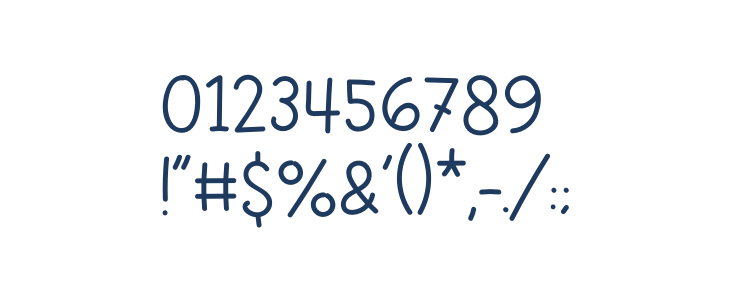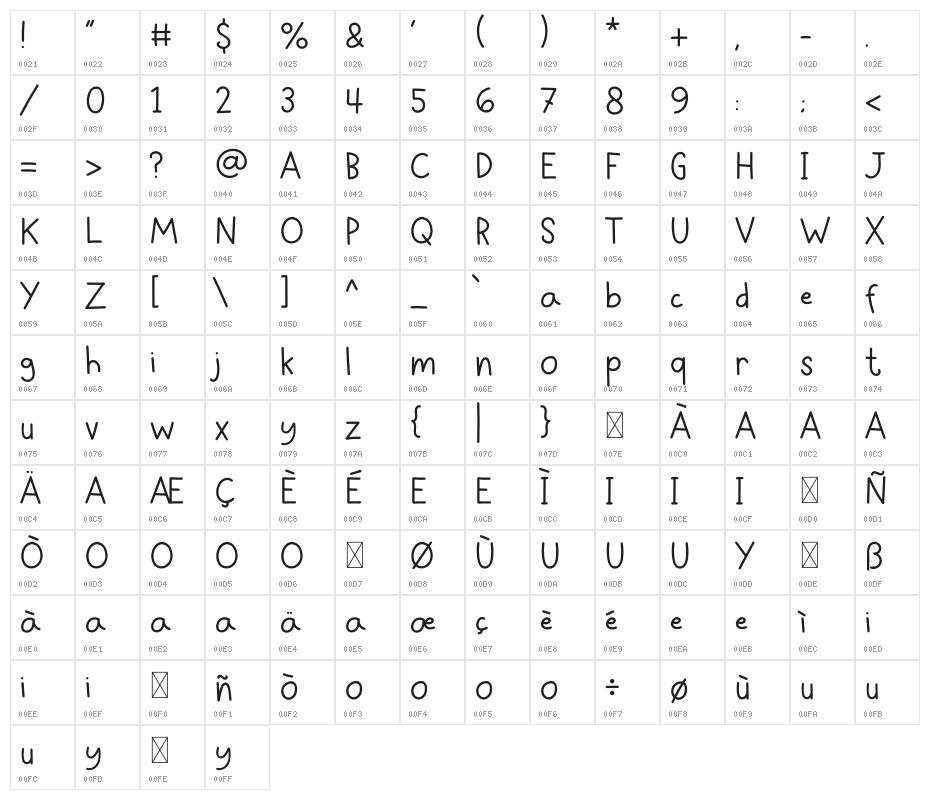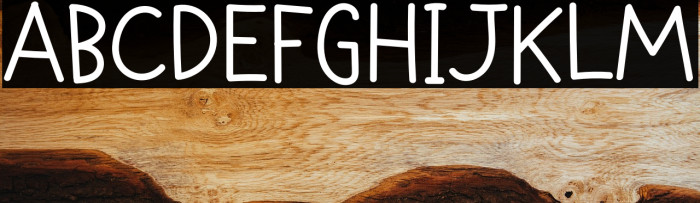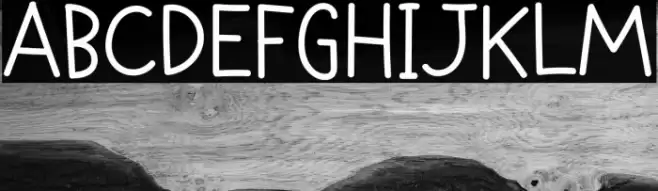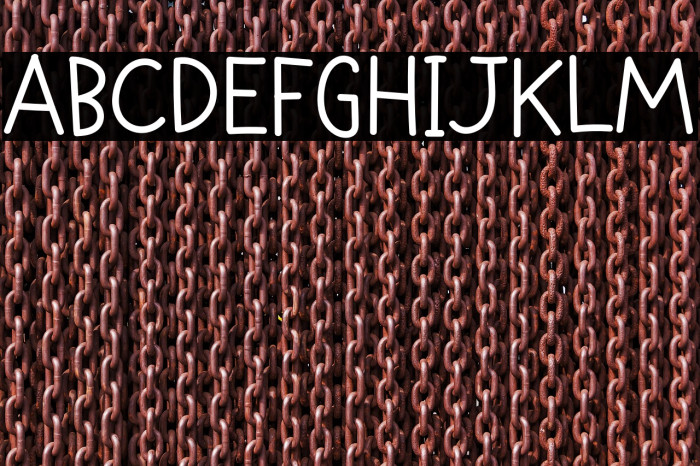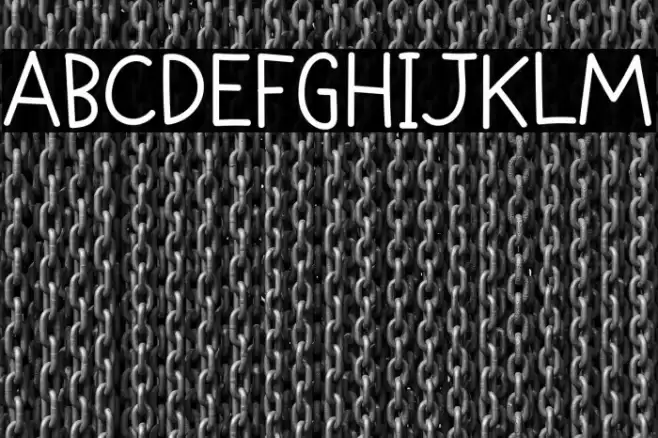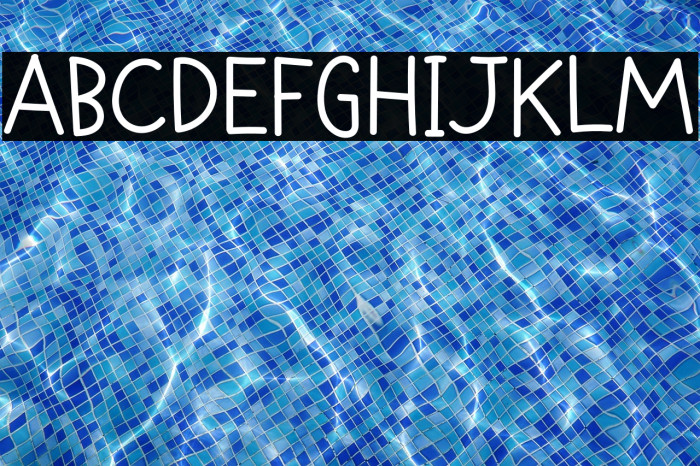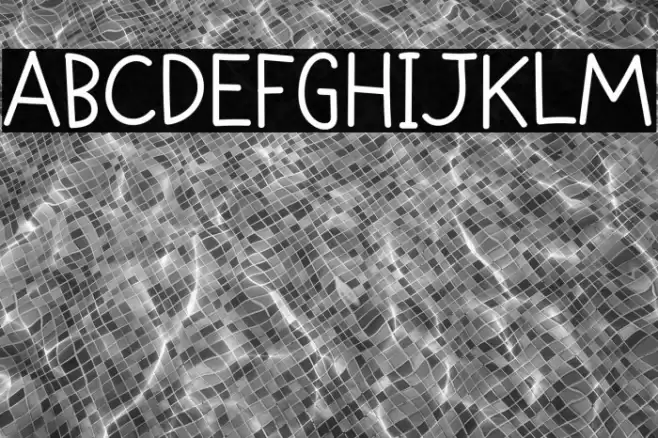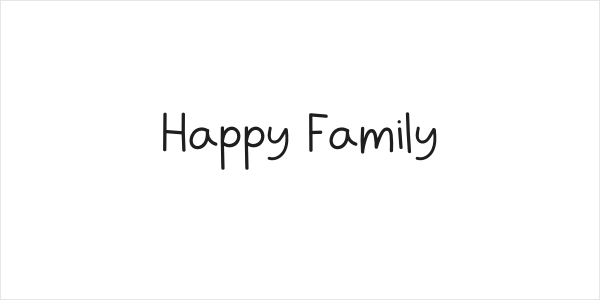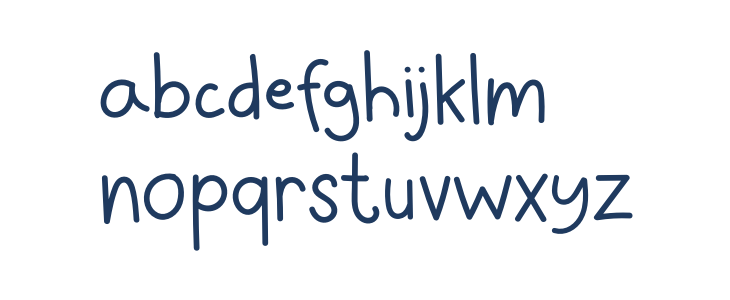
Happy Family Font
Happy Family Description
This font features a playful and casual handwritten style that exudes warmth and friendliness. The letters are slightly rounded with a consistent stroke width, giving it a uniform appearance. The uppercase characters are tall and slightly narrow, while the lowercase letters maintain a consistent height, contributing to a cohesive look. The numbers are clear and legible, matching the overall style of the alphabet. Special characters are designed with the same playful touch, making them blend seamlessly with the rest of the font. This font is perfect for projects that require a personal and approachable feel.
| Use Case | Headlines, Informal text, Branding |
| Proposed Projects | Ideal for greeting cards, children's books, casual invitations, and playful branding. |